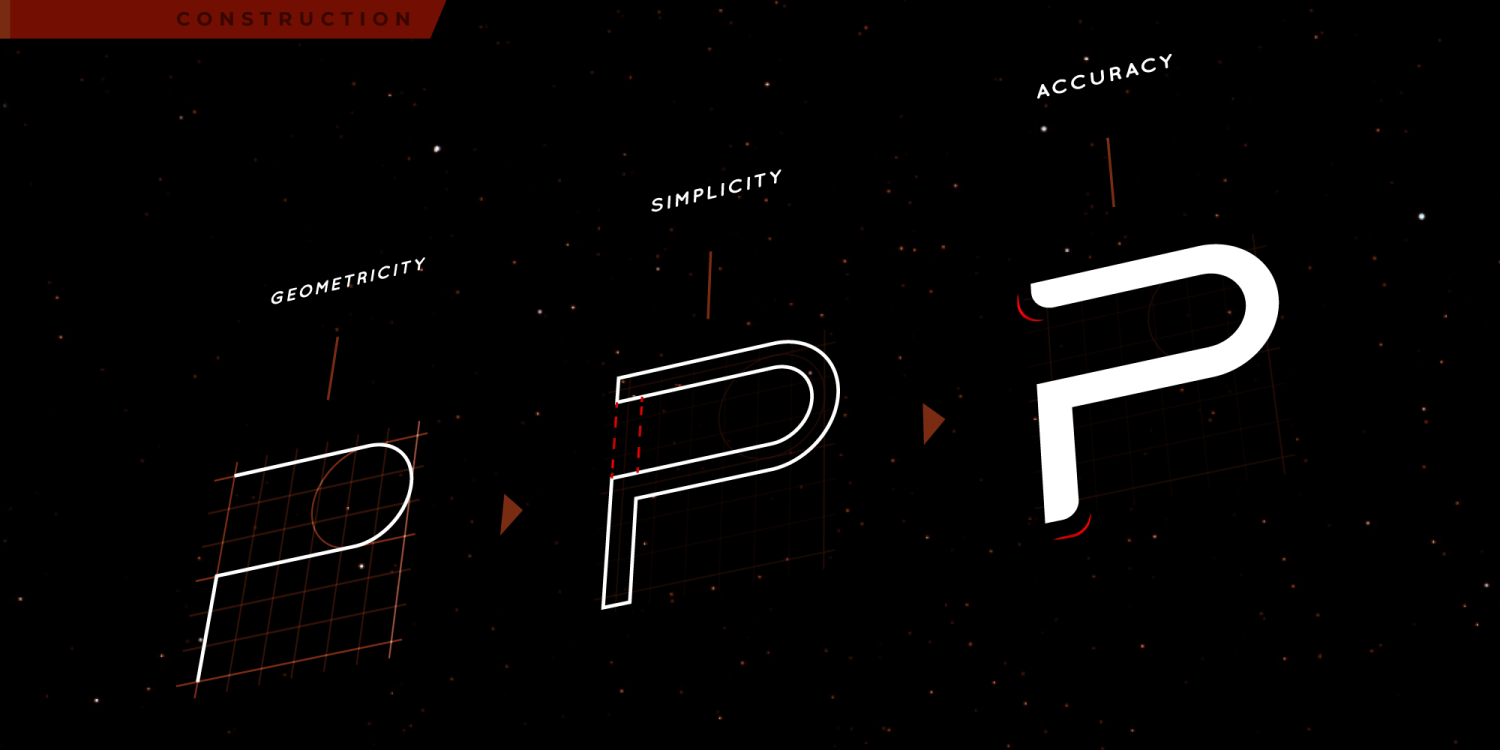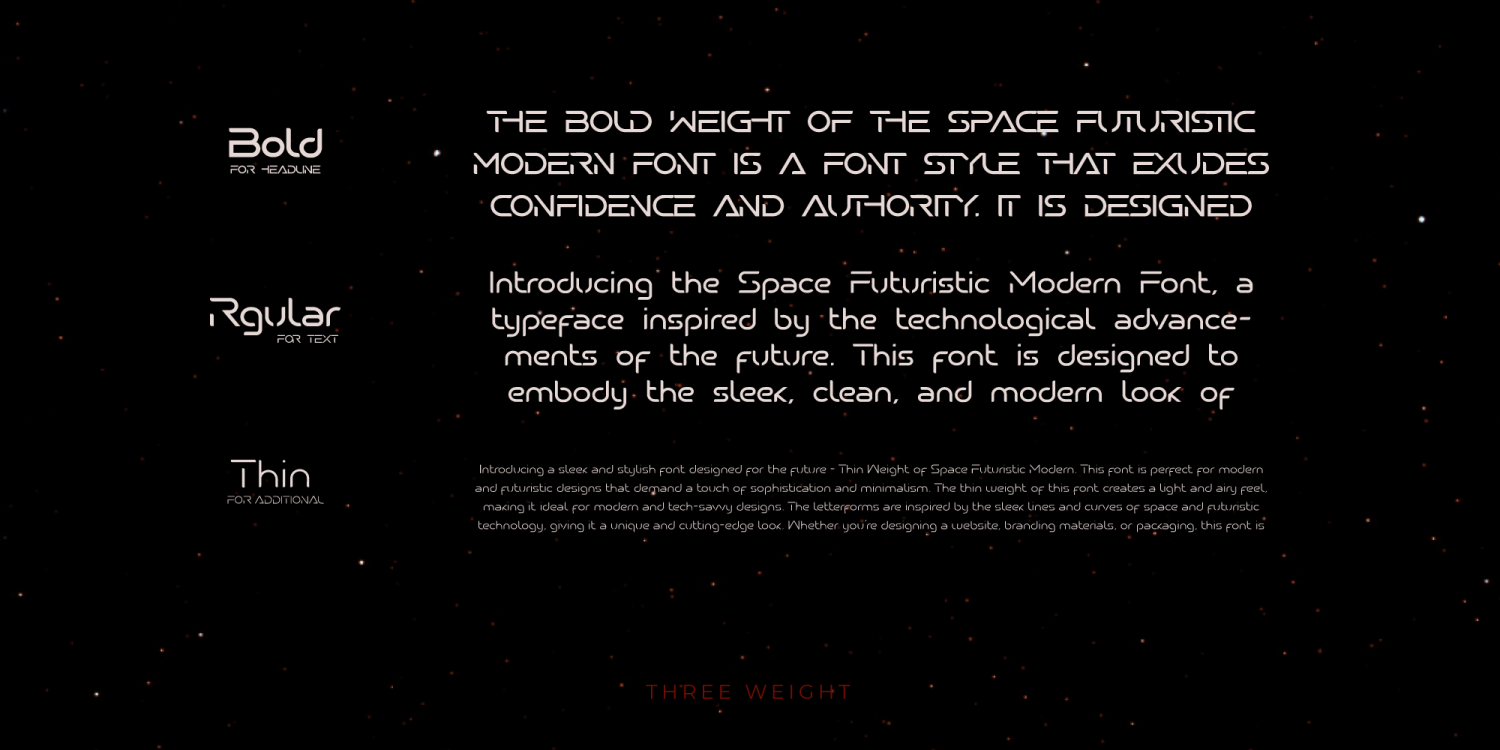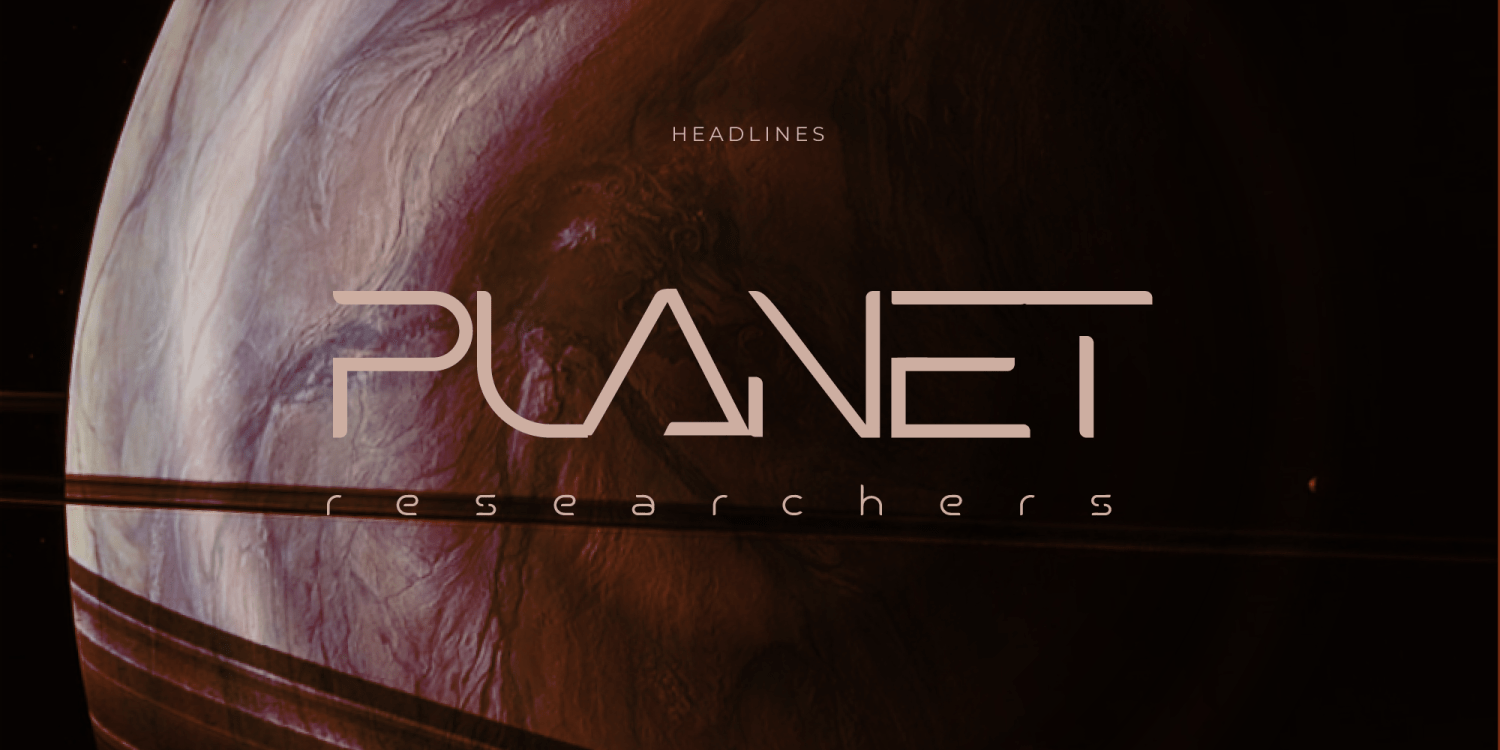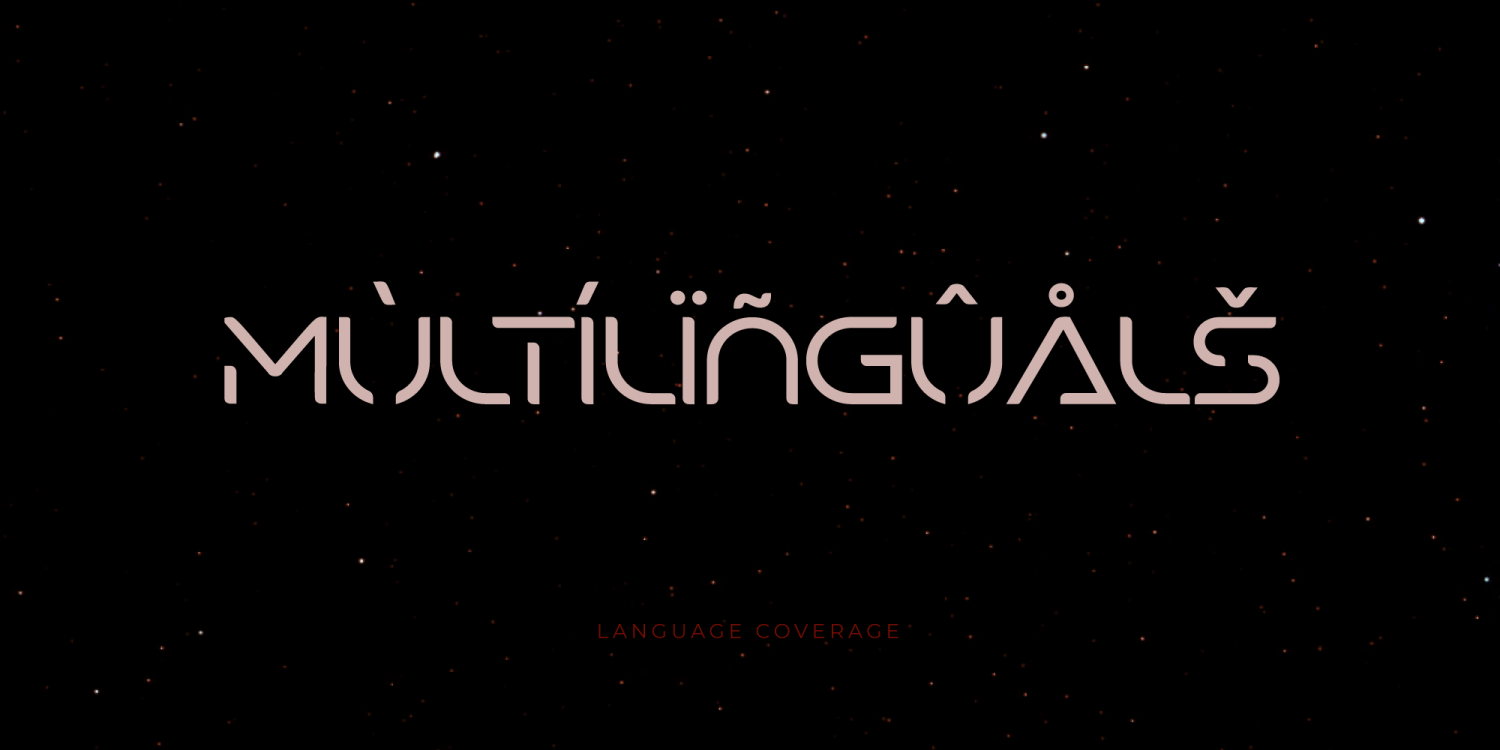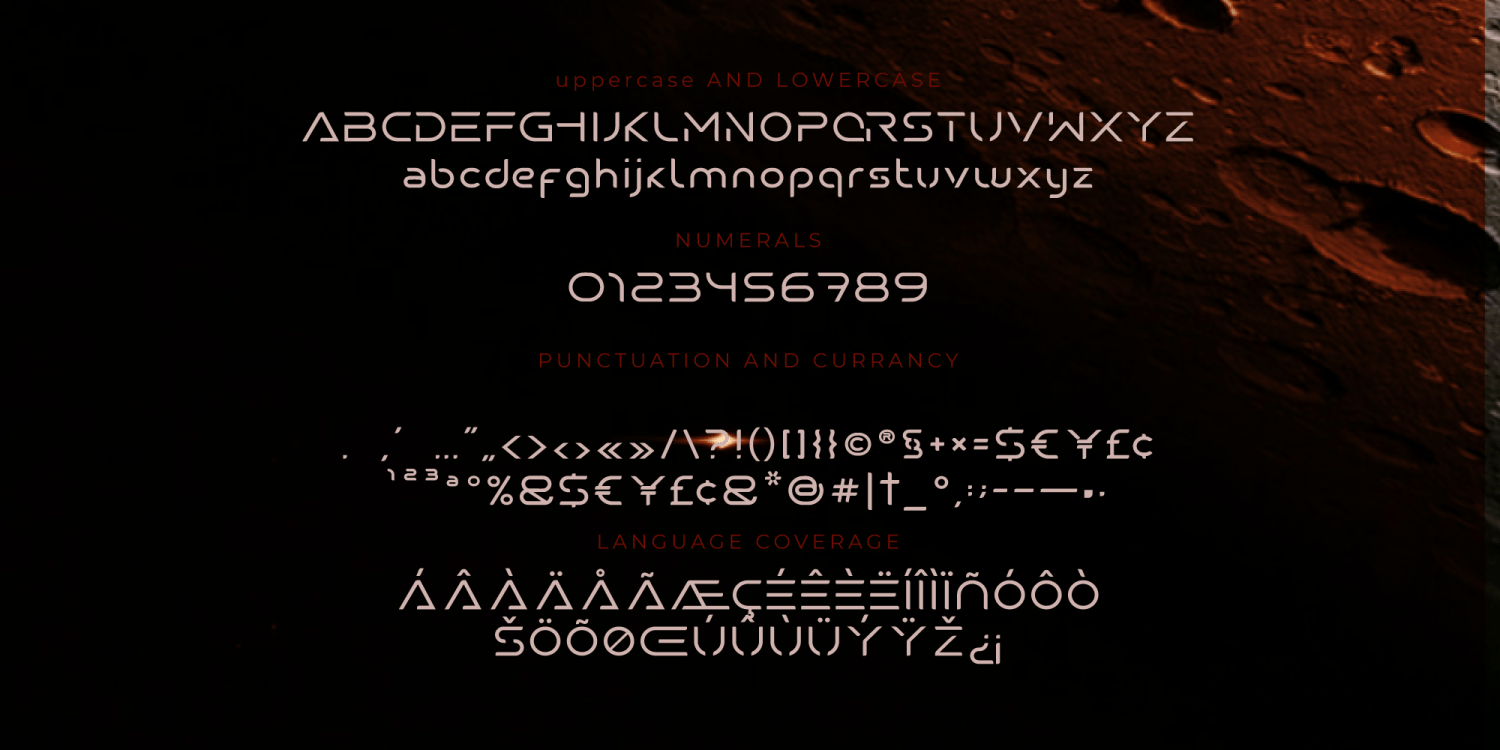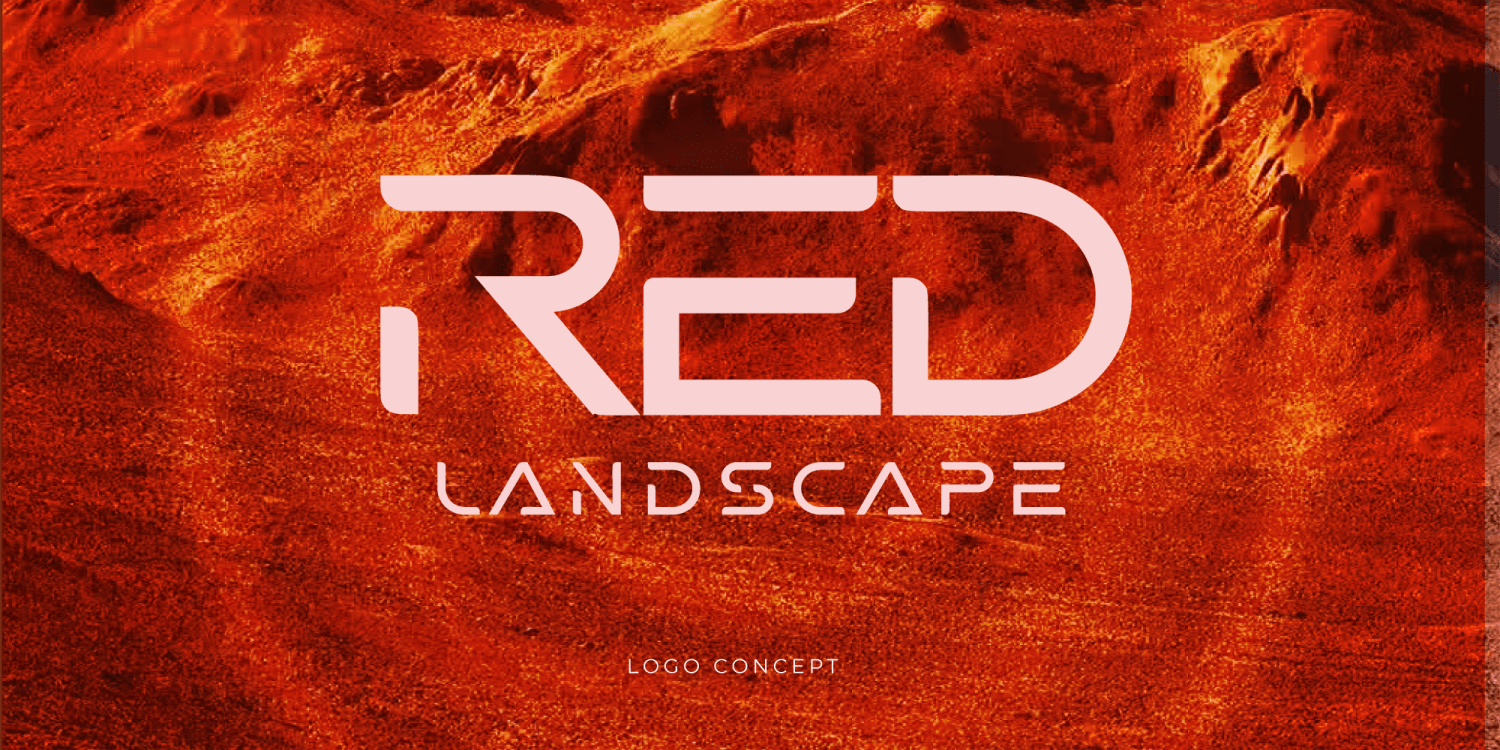
iMars is a futuristic geometric sans serif family designed for aerospace, science fiction, technology and forward-looking branding. Its rounded terminals, open letterforms and smooth modular construction create a clean space-age appearance with a distinctive visual identity.
Available in Bold, Regular and Thin styles, iMars works well for logos, headlines, space-themed posters, game titles, digital interfaces, automotive graphics, product packaging, editorial design and technology branding. The Bold style delivers strong display typography, while the lighter weights are suited to refined titles and supporting text.
The family includes uppercase and lowercase letters, numerals, punctuation, currency symbols and multilingual Latin support. Its coordinated weights make it a flexible choice for projects that need a modern, minimalist and futuristic atmosphere.